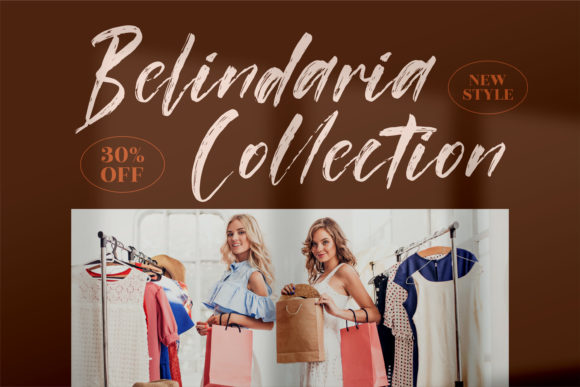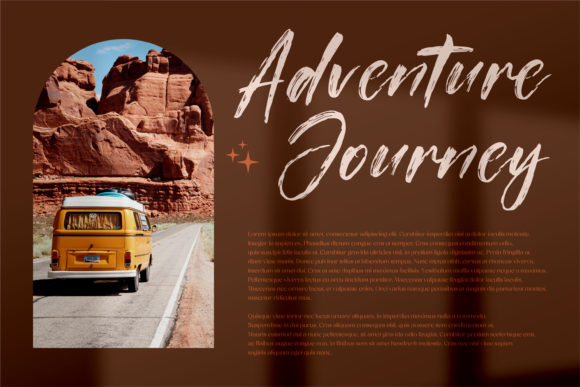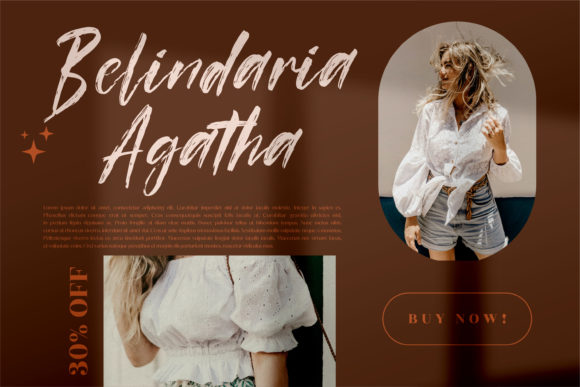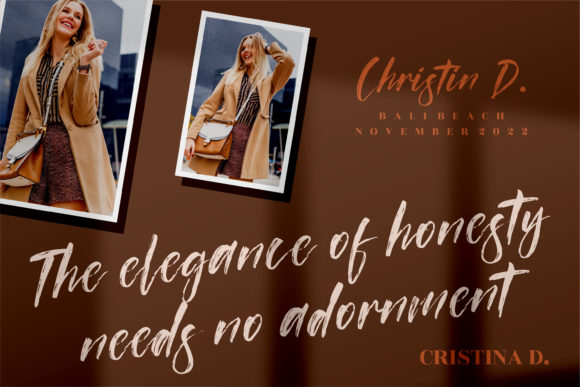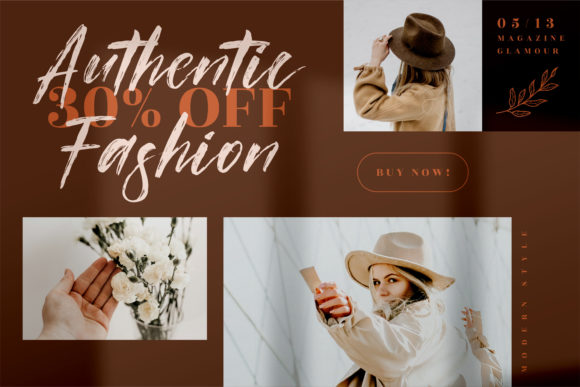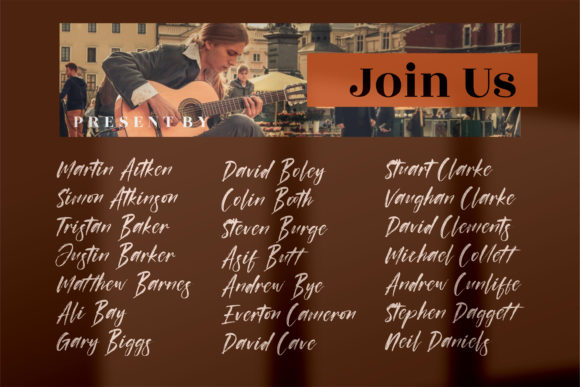
The Brother Font: A Designer’s New Best Friend
I still remember the day I stumbled upon the Brother font. I was working on a project for a client who needed a bold, yet elegant font to represent their brand. I had spent hours scouring the internet for the perfect font, but nothing seemed quite right. That was when I stumbled upon Brother – and it was love at first sight! 💕
The Brother font has since become a staple in my design toolkit, and I’m excited to share my experience with you. In this article, we’ll dive into the world of Brother, exploring its features, how to use it, and what makes it so special.
• ✨ Unique character: Brother has a distinct personality that sets it apart from other fonts.
• ✅ Highly versatile: It works beautifully for both digital and print projects.
• 💯 Excellent legibility: Even at small sizes, Brother remains clear and easy to read.
• 🎨 OpenType features: Brother comes with a range of OpenType features, including stylistic alternates and glyphs.
While Brother is an amazing font, it’s not perfect. Here are a few things to keep in mind:
• 🤔 Limited language support: Brother currently supports a limited number of languages.
• ⚠️ Not suitable for body text: While Brother is legible, it’s not the best choice for long blocks of text.
The Brother font was designed with inspiration from classic typography and modern digital design. Its creator aimed to craft a font that was both elegant and bold, with a unique character that would stand out in any design. While the exact story behind Brother’s creation is unclear, it’s evident that the designer poured their heart and soul into crafting a truly special font.
Q: What is the Brother font?
A: Brother is a modern, bold font designed for creative projects.